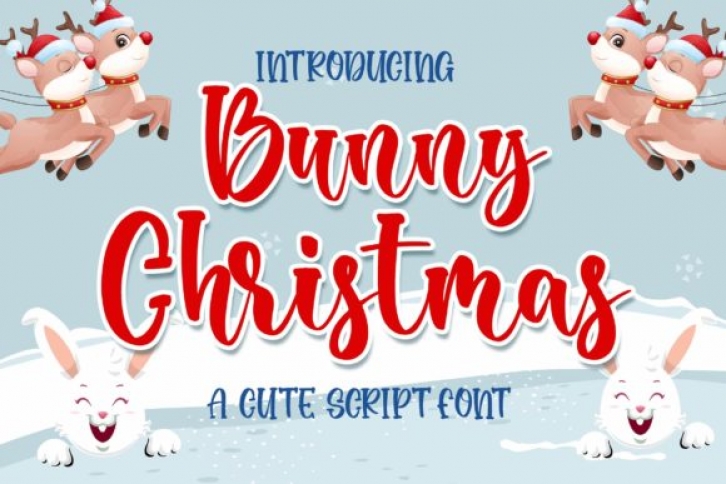
Bunny Christmas is a sweet and festive handwritten font. This font will be ideal for writing wedding invitations, cards or any other design that may need a joyful, personalized touch!